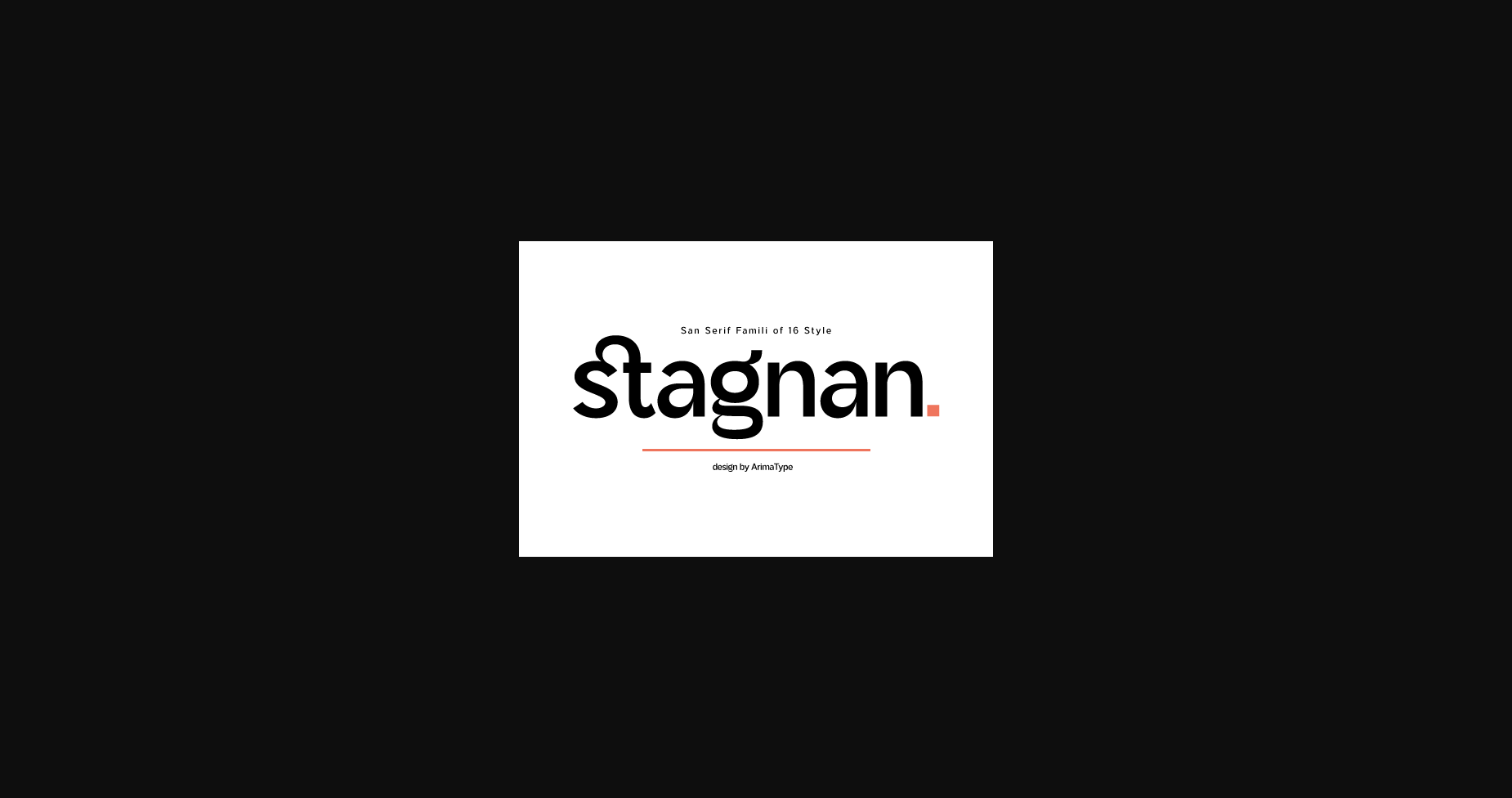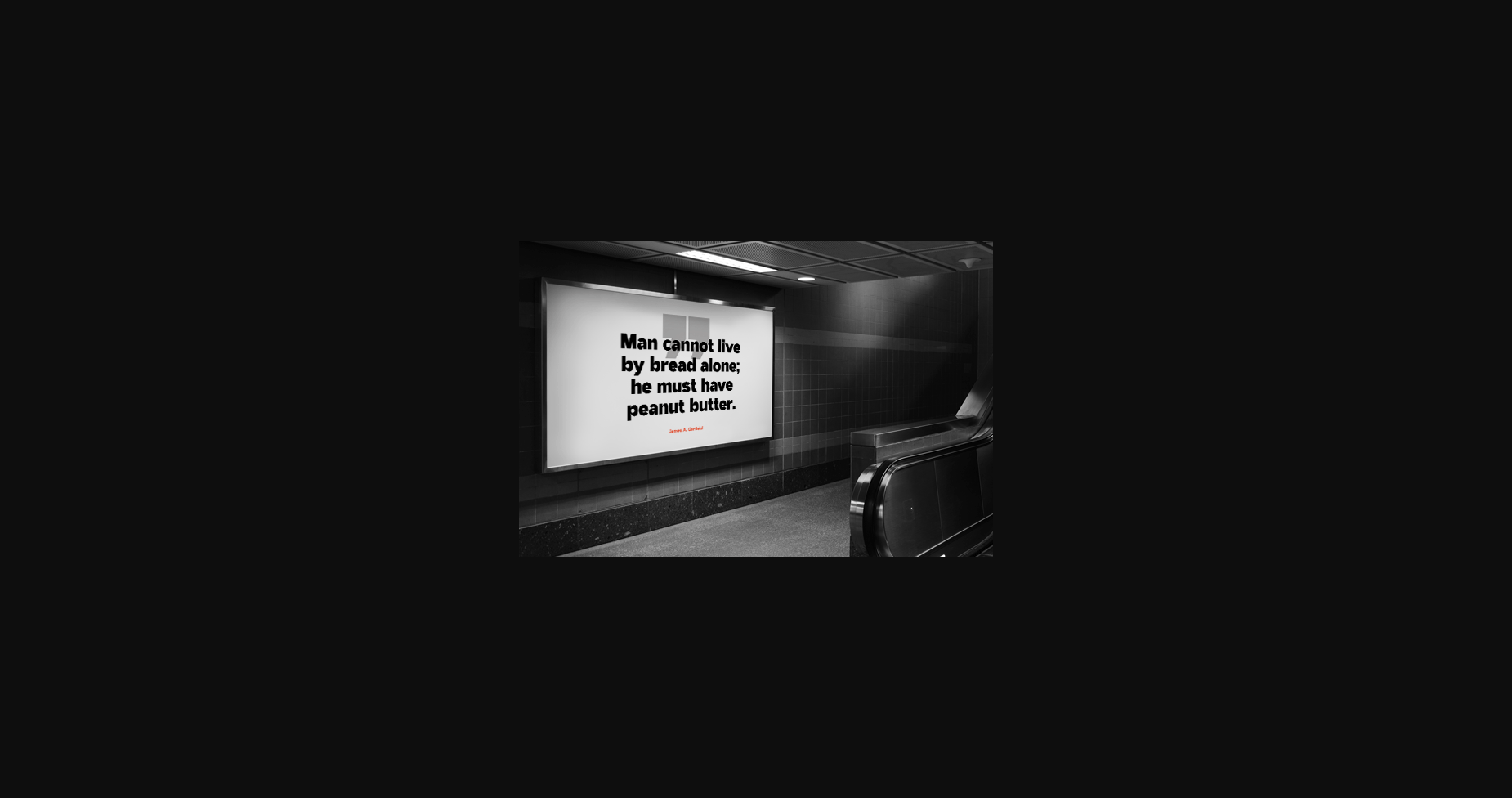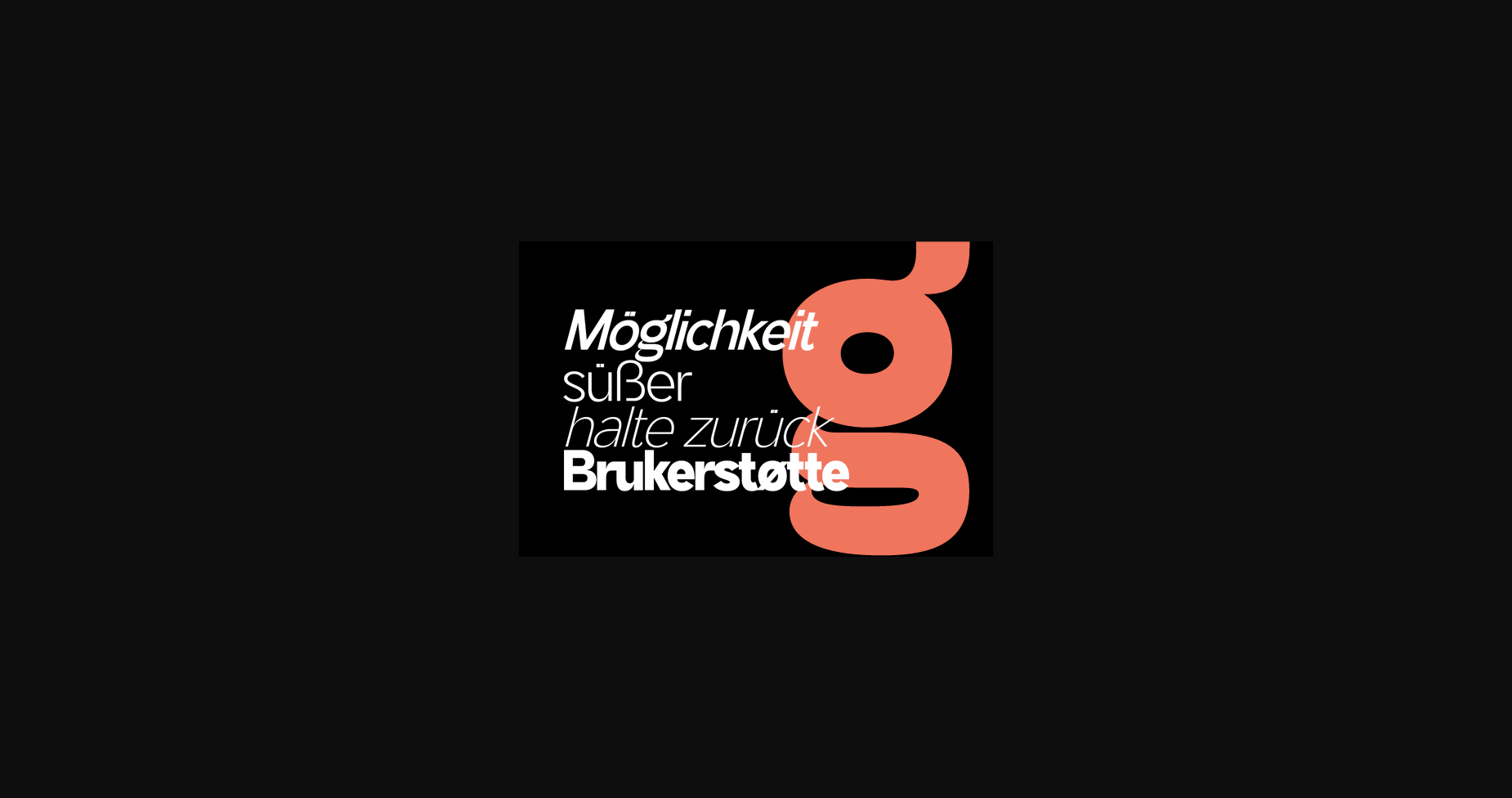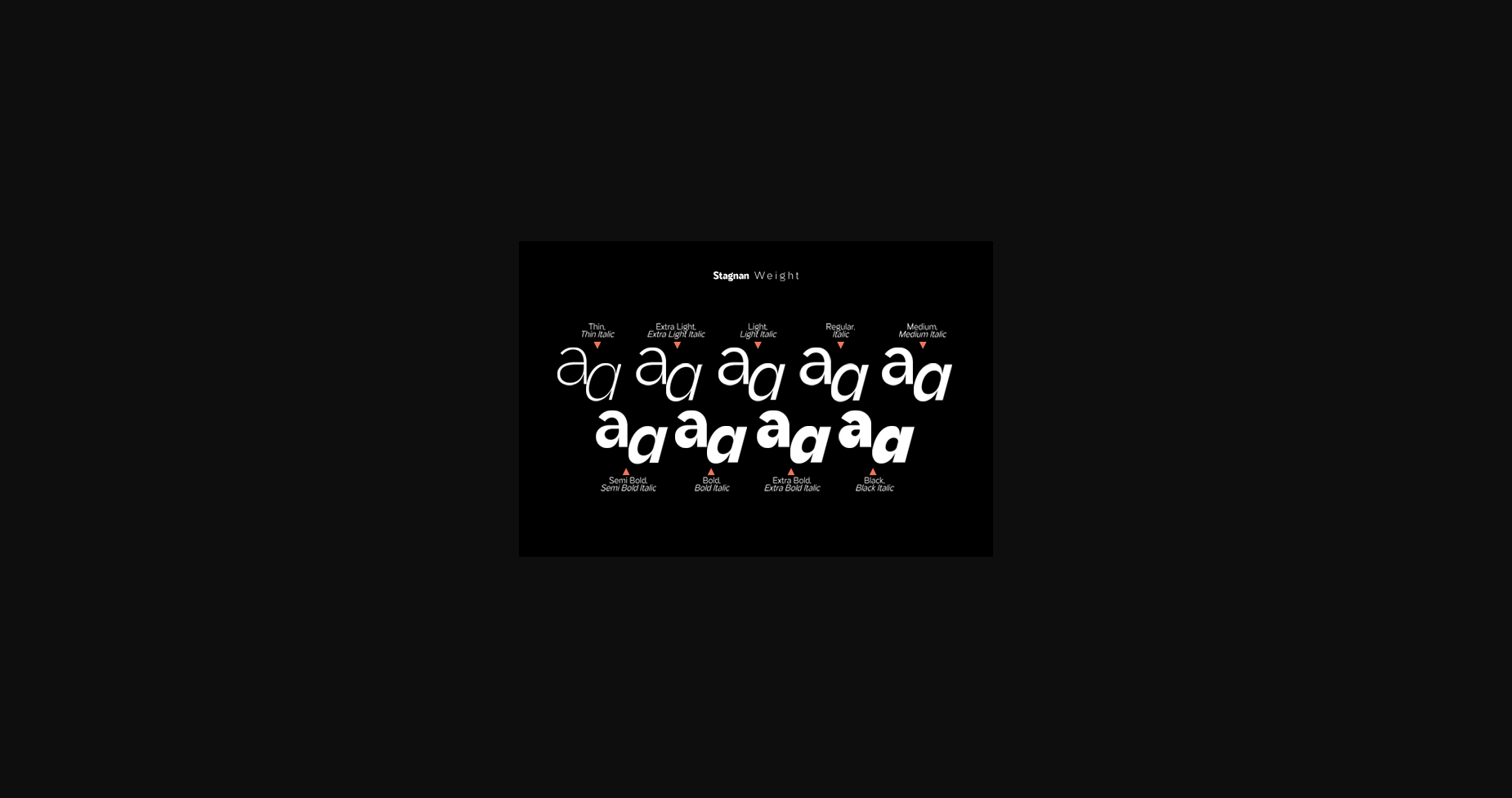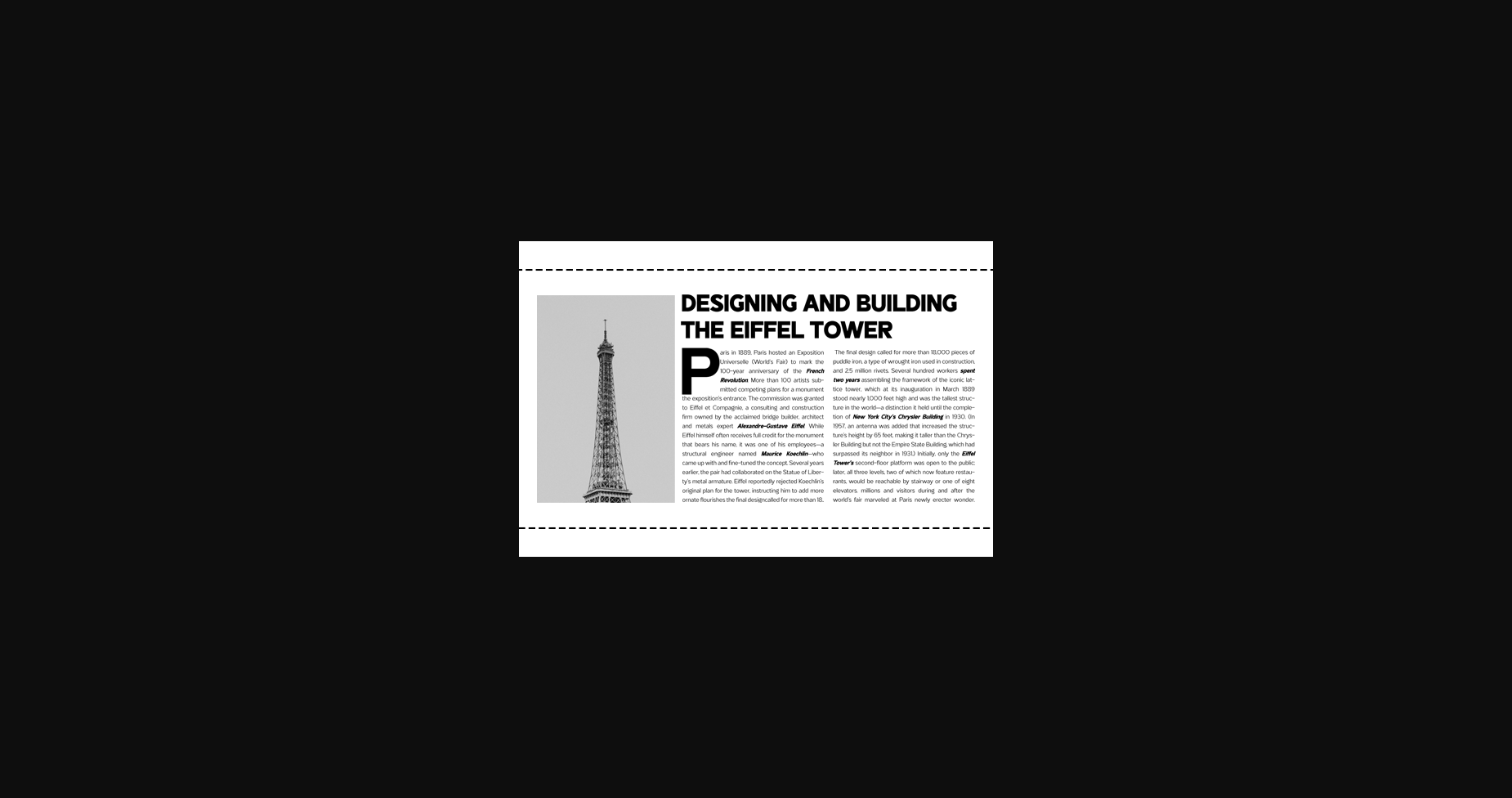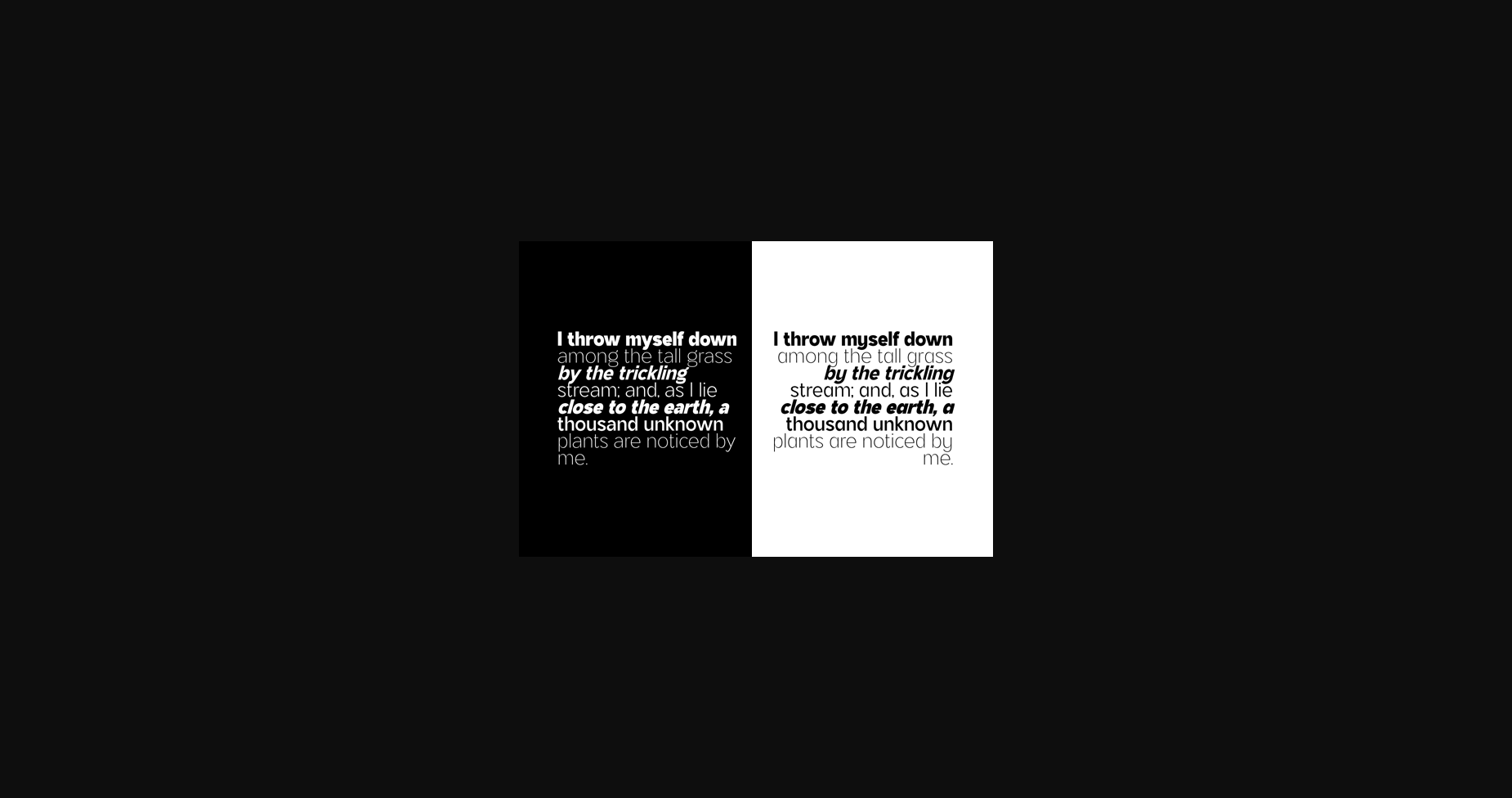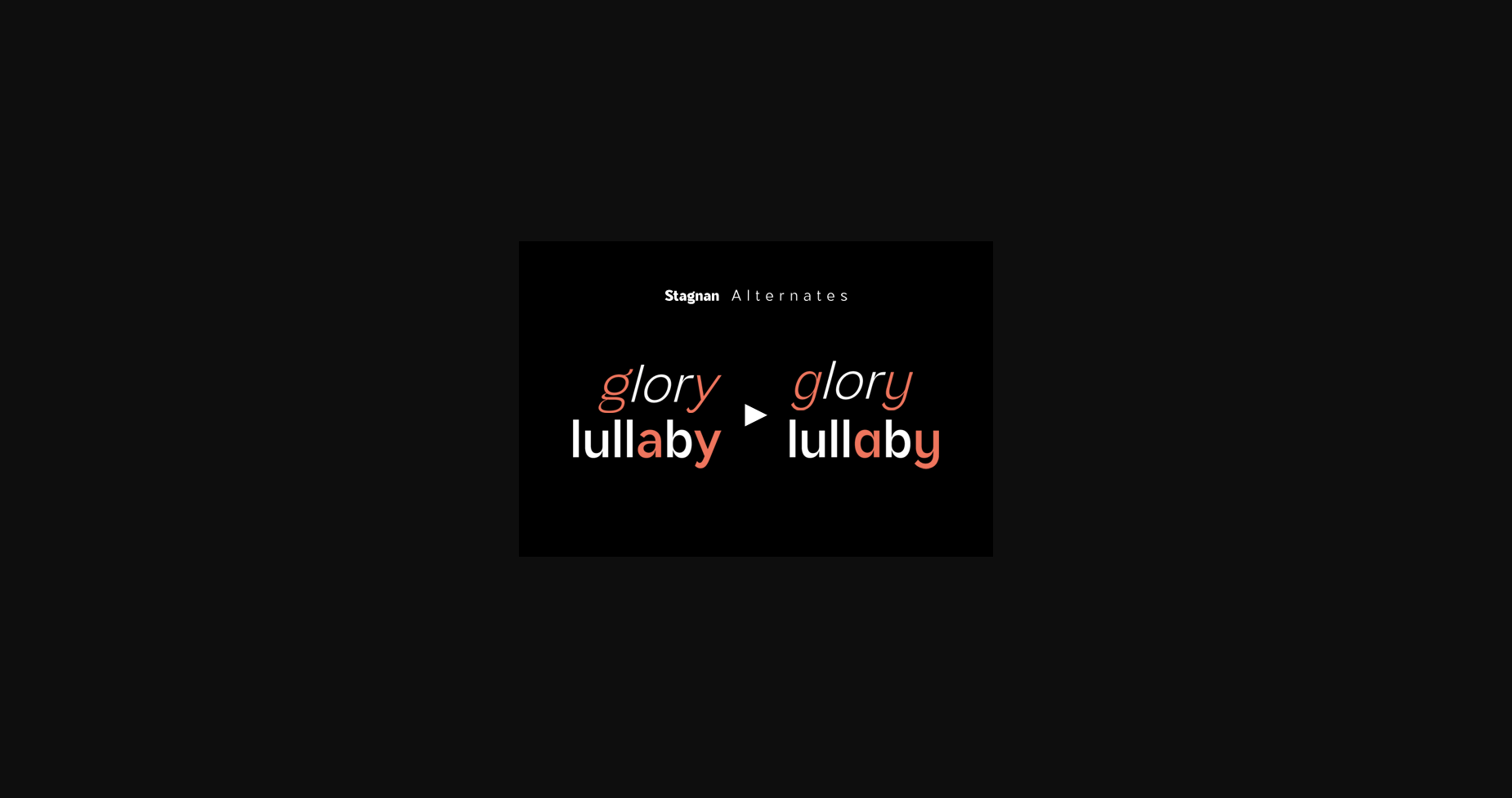
Stagnan Font
About Stagnan Font
Stagnan is a modern sans serif font. It can easily be matched to an incredibly large set of projects, so add it to your creative ideas and notice how it makes them stand out!